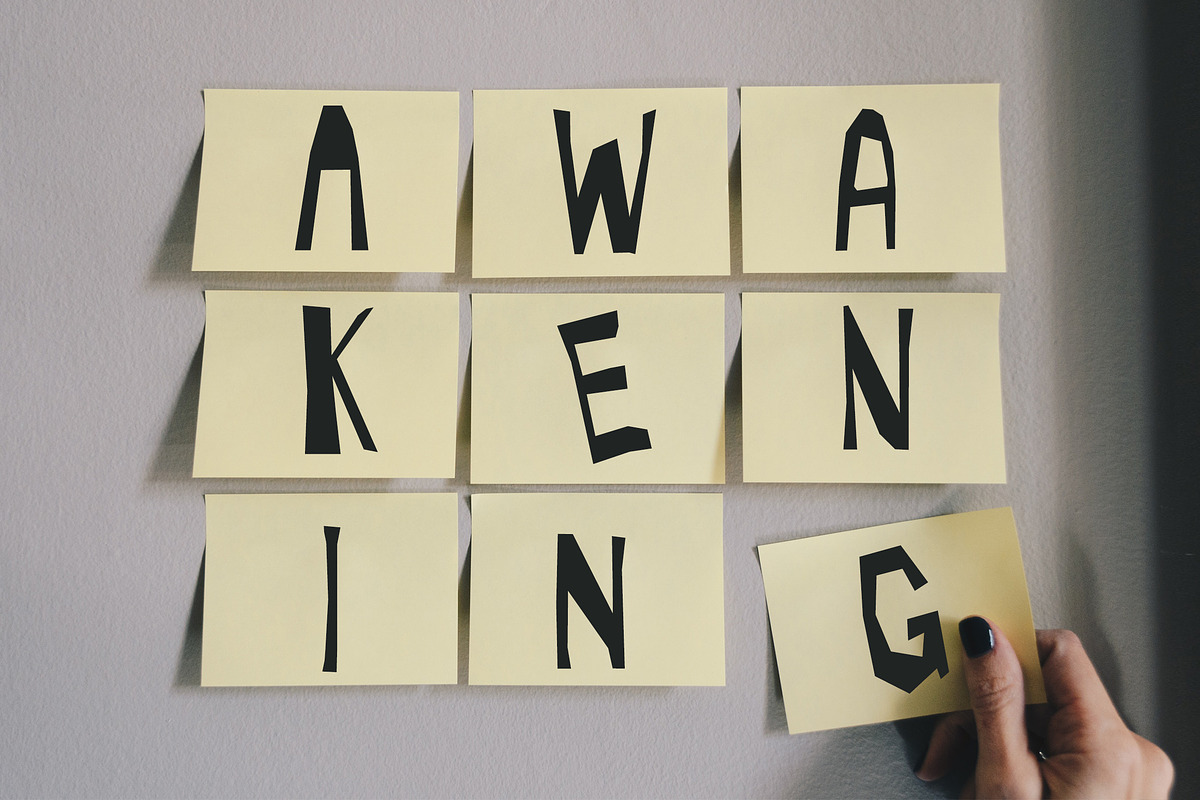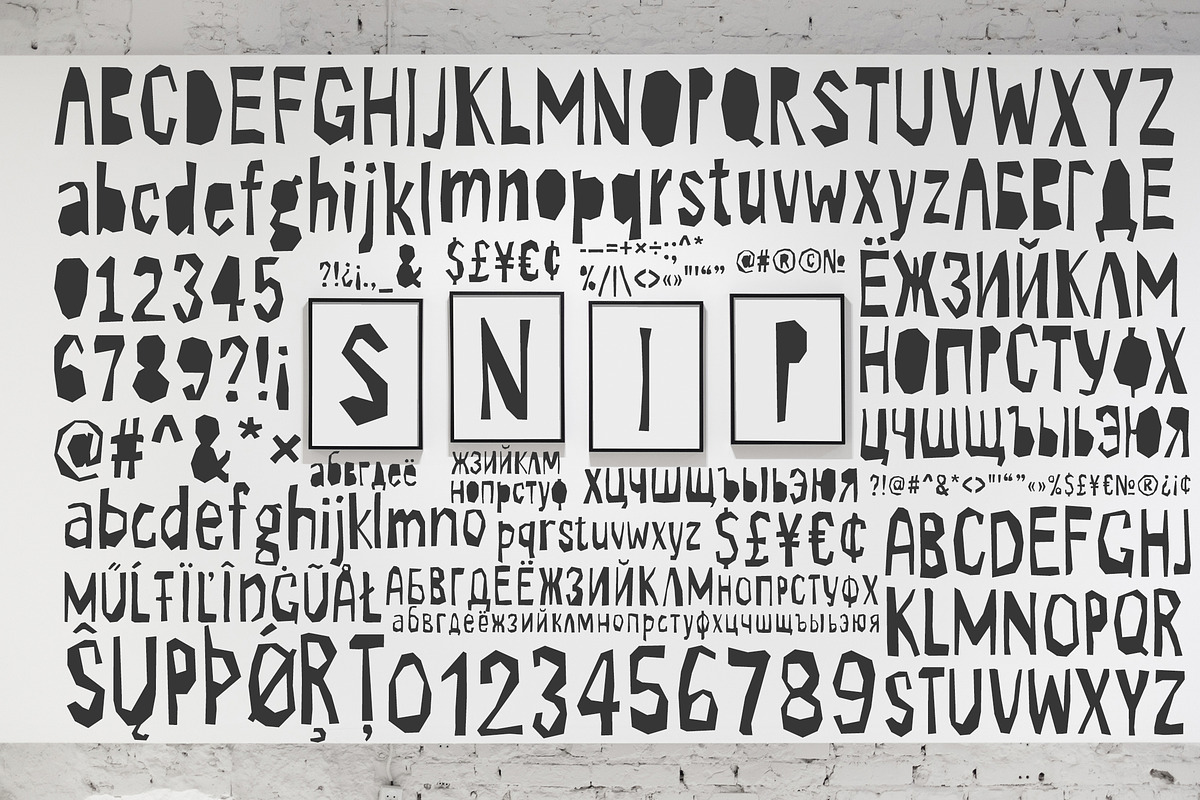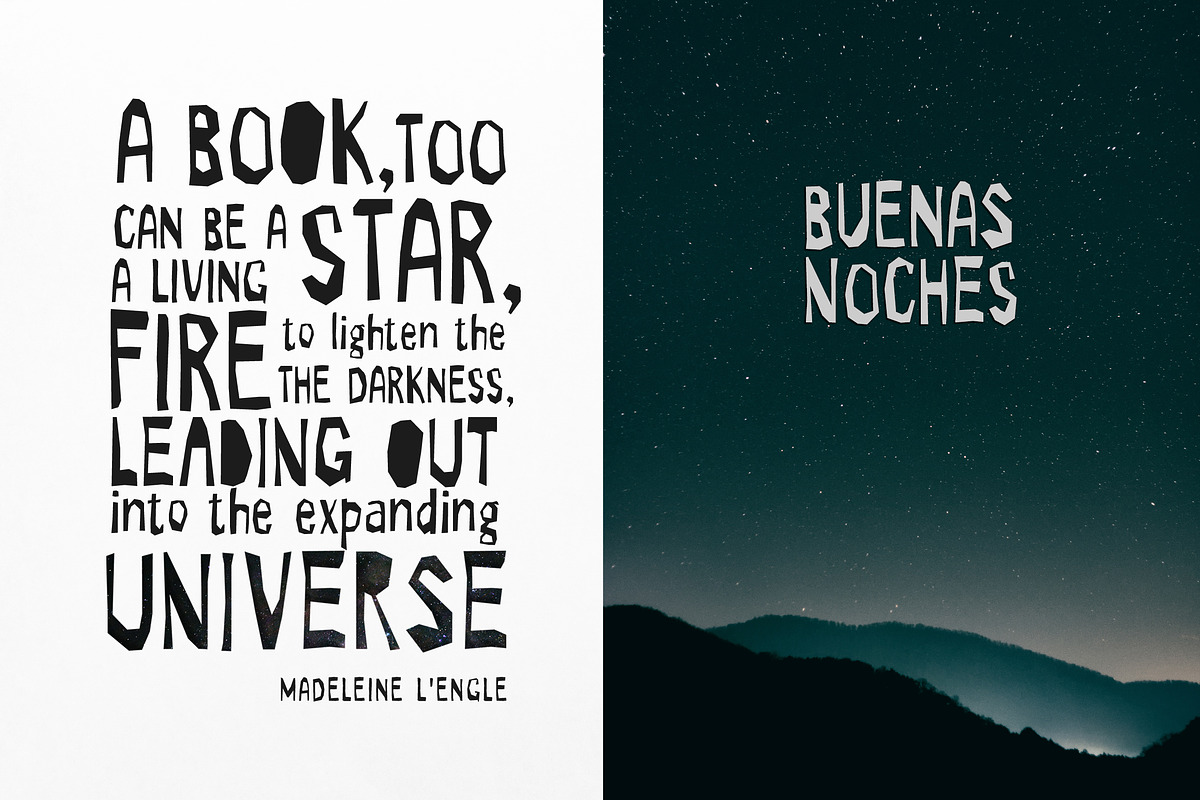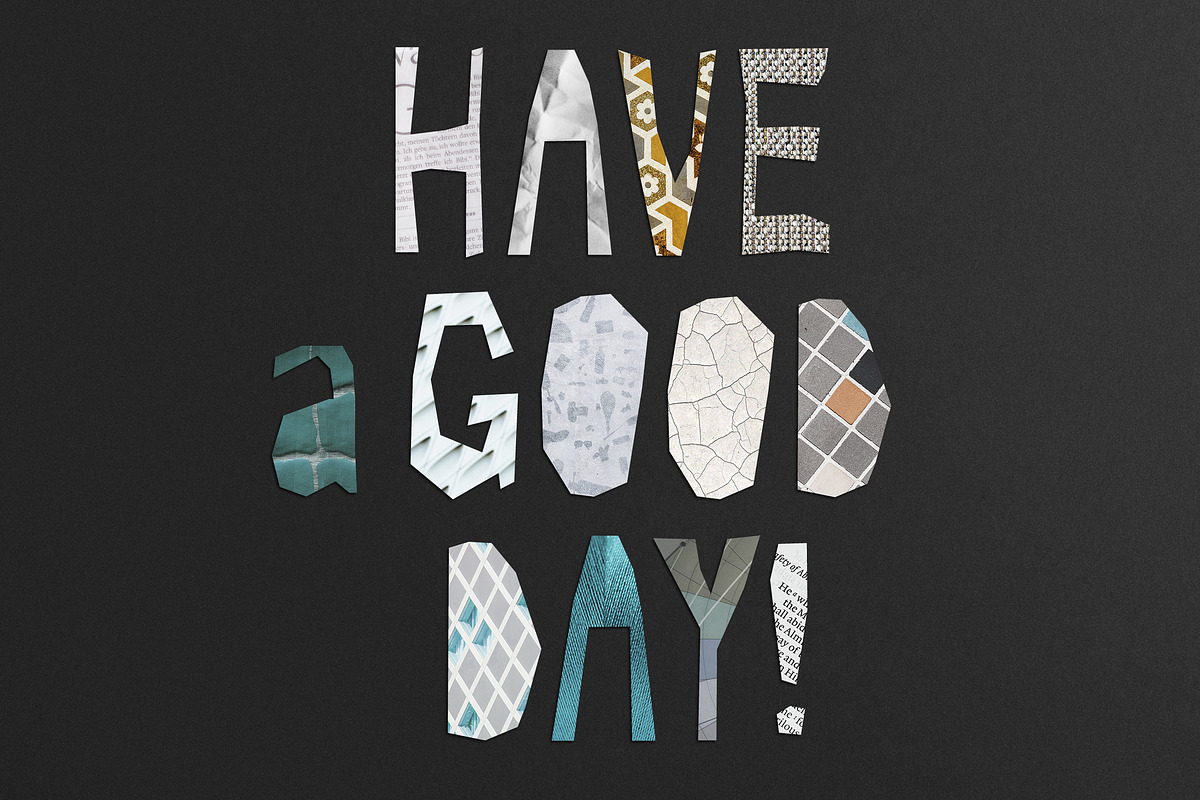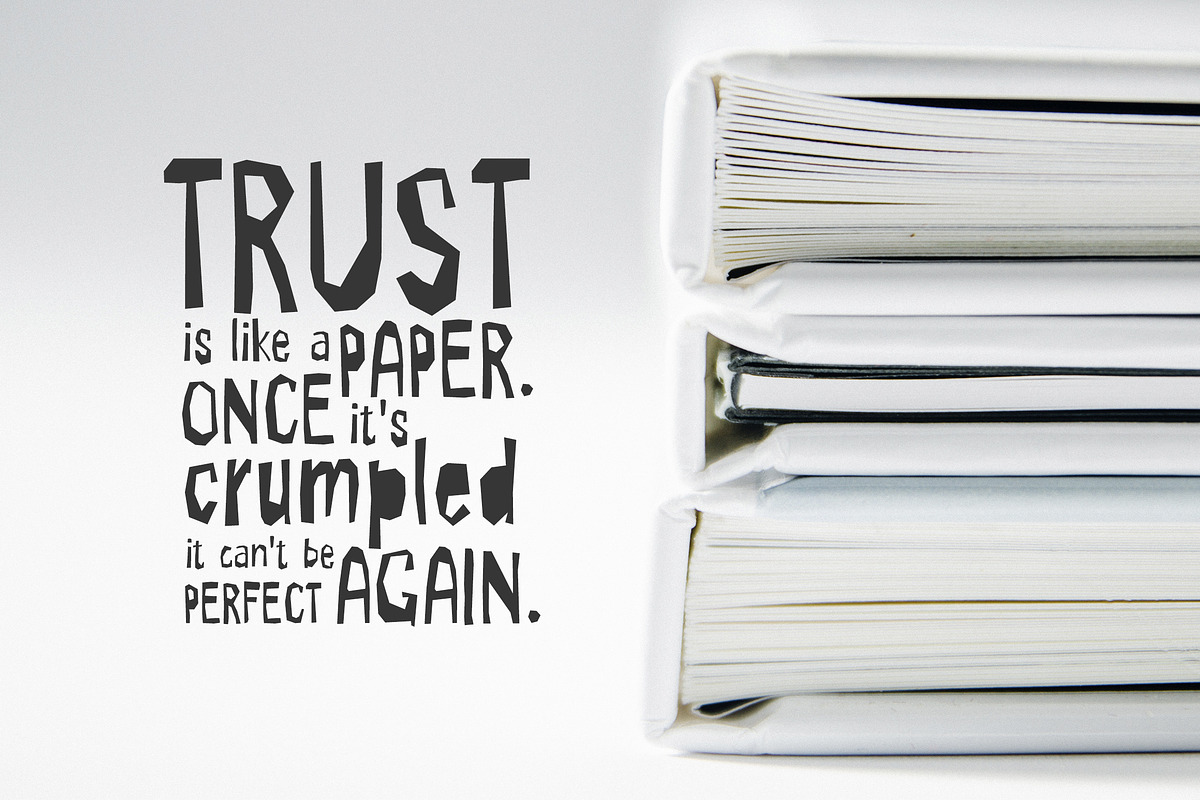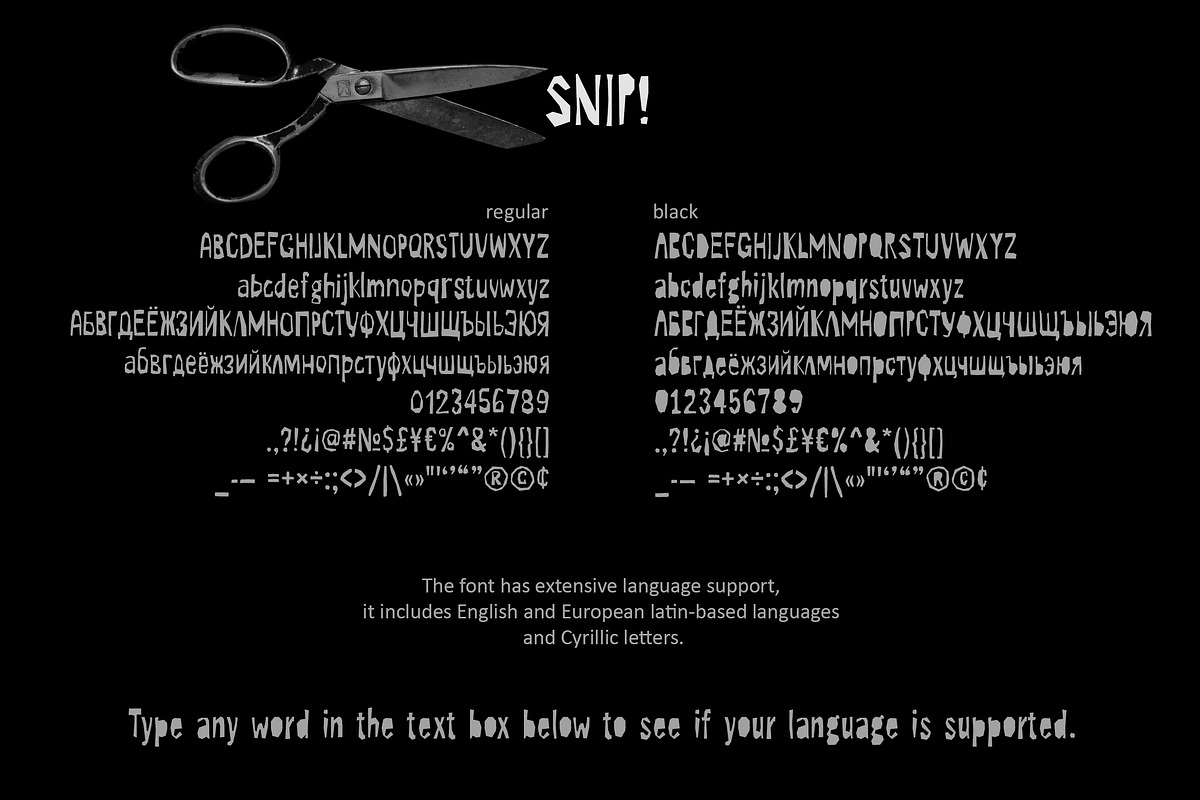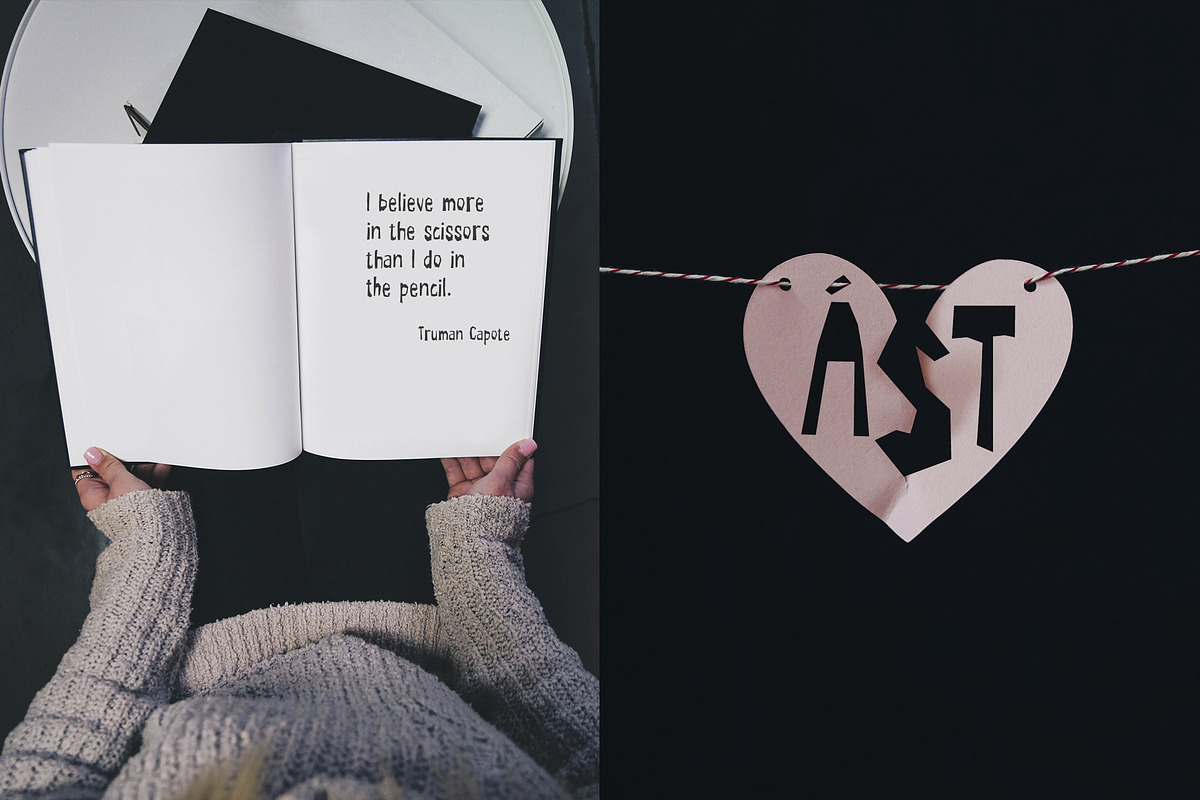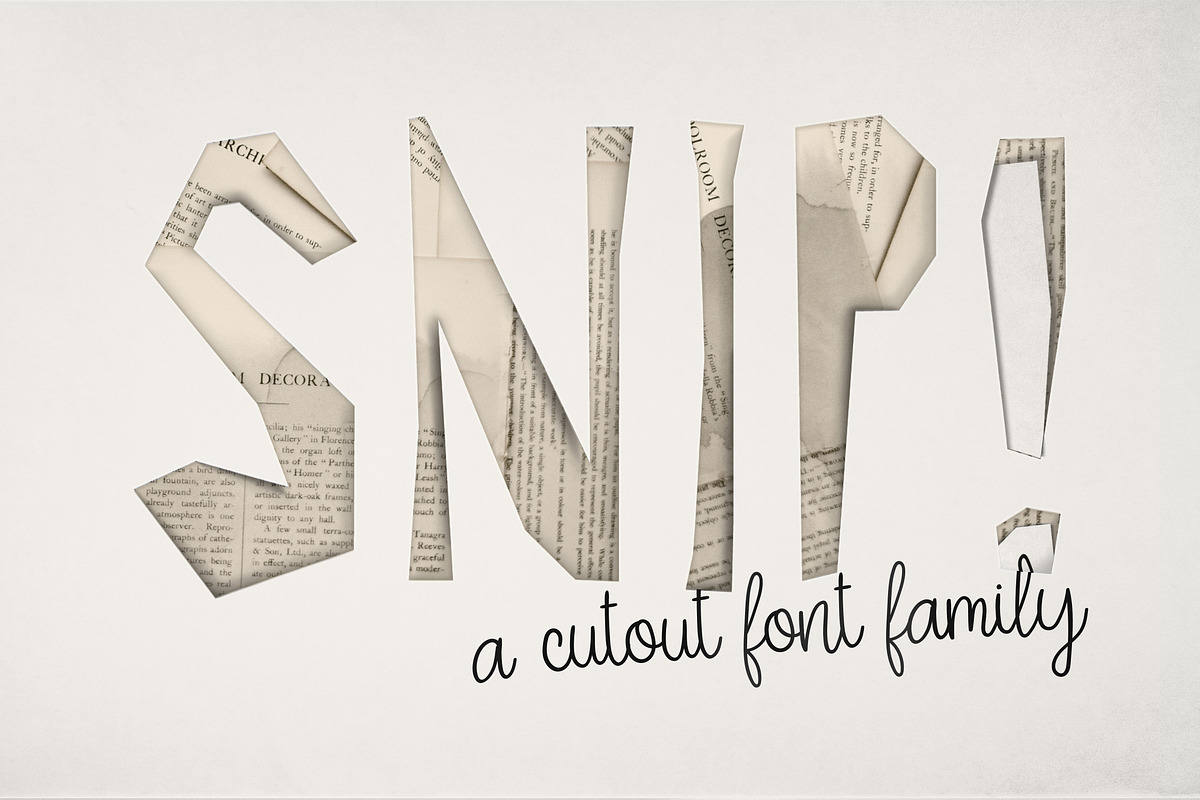
SNIP! Font Family
I’m pleased to introduce my new cutout font family SNIP!
SNIP! available in two different styles: Regular and Black. Black is cut with scissors along the contour. The negative space appears in Regular.
Combine these two styles to create catchy caption for your poster, book cover, social media, greeting card, packaging, art prints, gift tags, party invitations, brochures, flyers, photo overlays, scrapbooking, social media, magazines, books and so much more. This font family is perfect for design projects in cutout style.
In addition to English, SNIP! font family supports main European Languages and it had Cyrillic letters. Just type any word in the text box below to see if your language is supported.